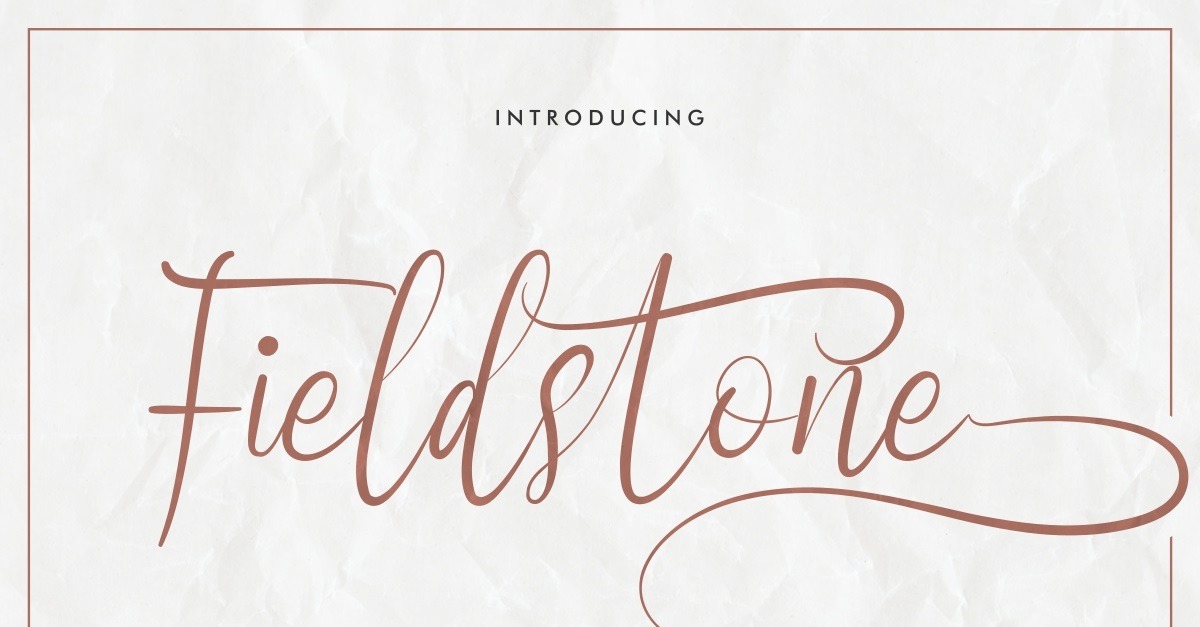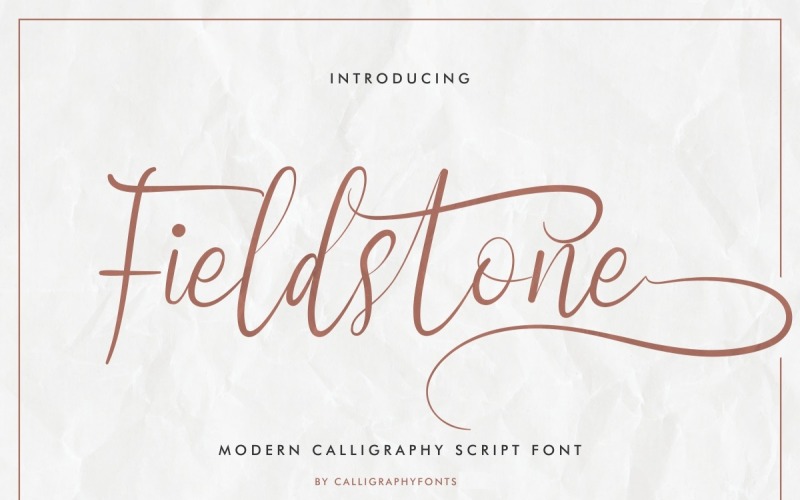
Fieldstone Font
Fieldstone is a Modern brush calligraphy font. The style of this font are stylish, clean, elegant, luxury and classic brush font. It has a stunning characters set, perfectly managed with well spaced and kerning. The theme style of this font is simple. elegant, sophisticated, stylish, clean and classic signature style.